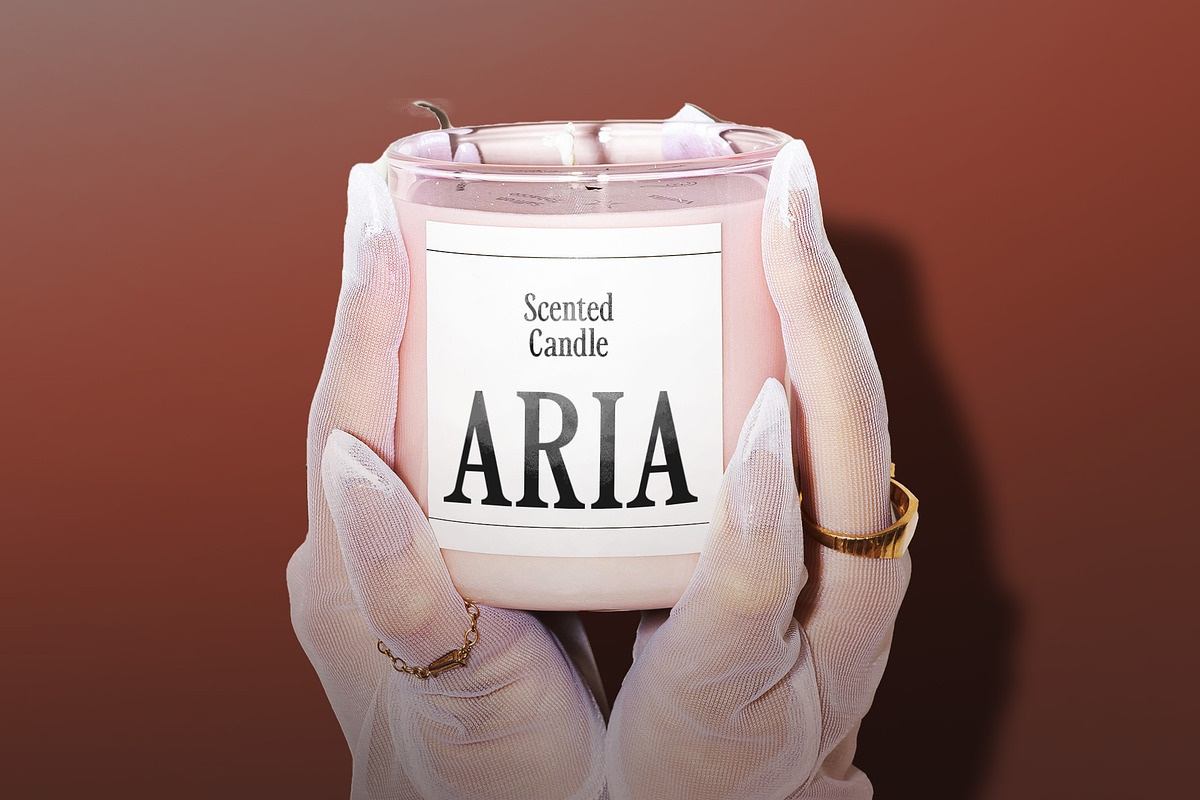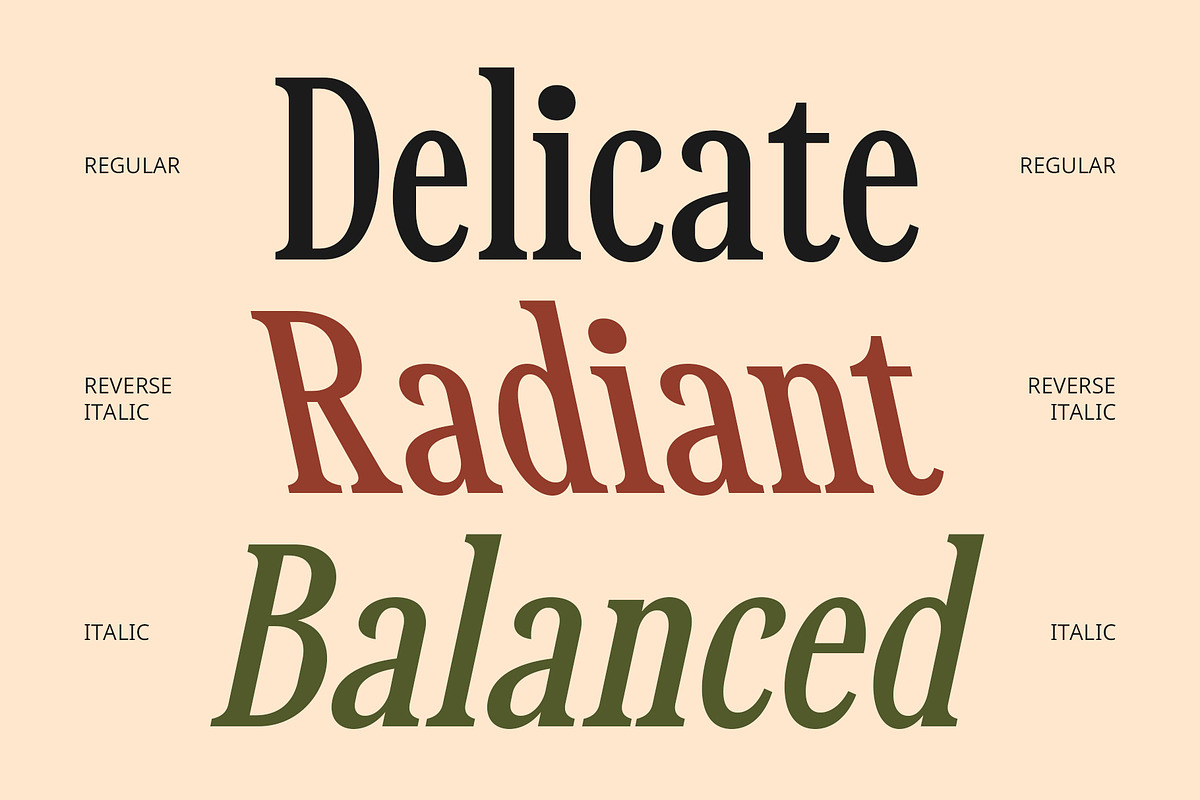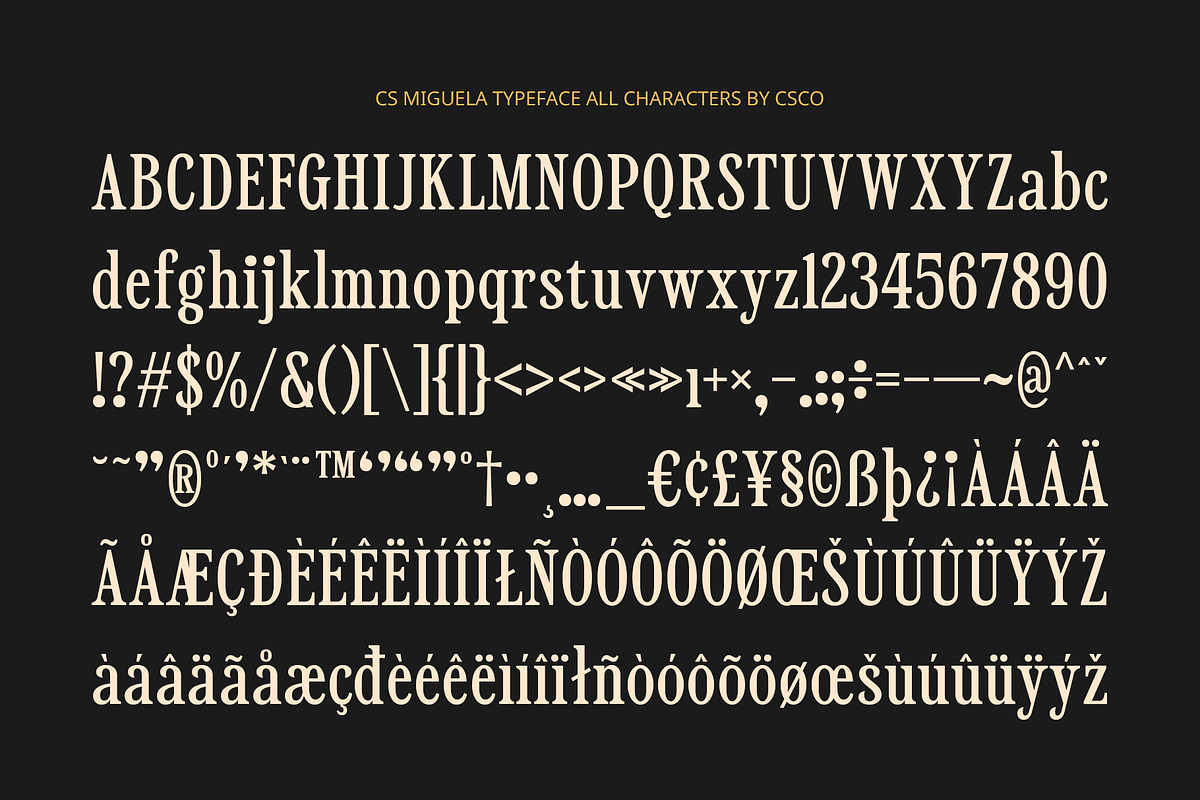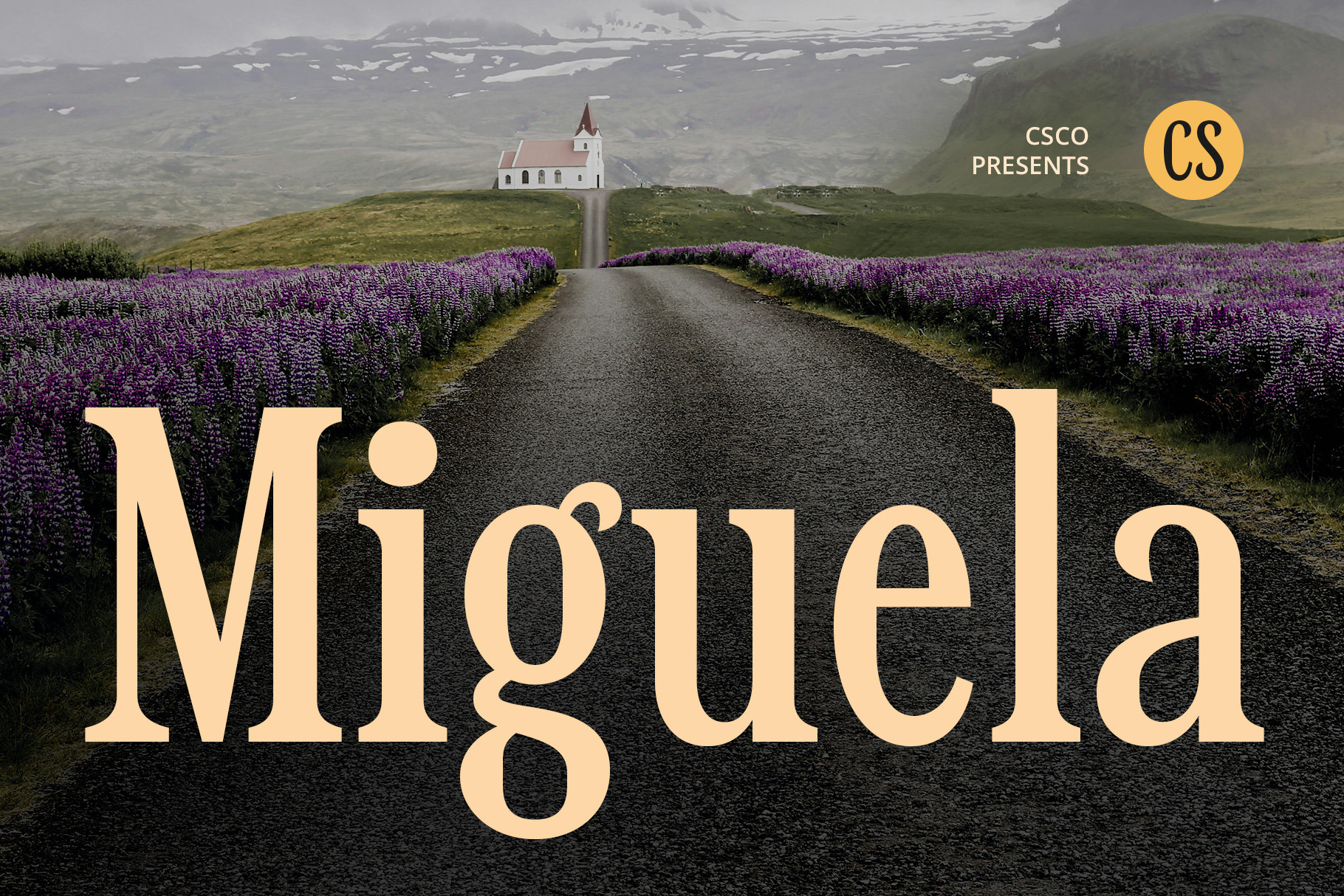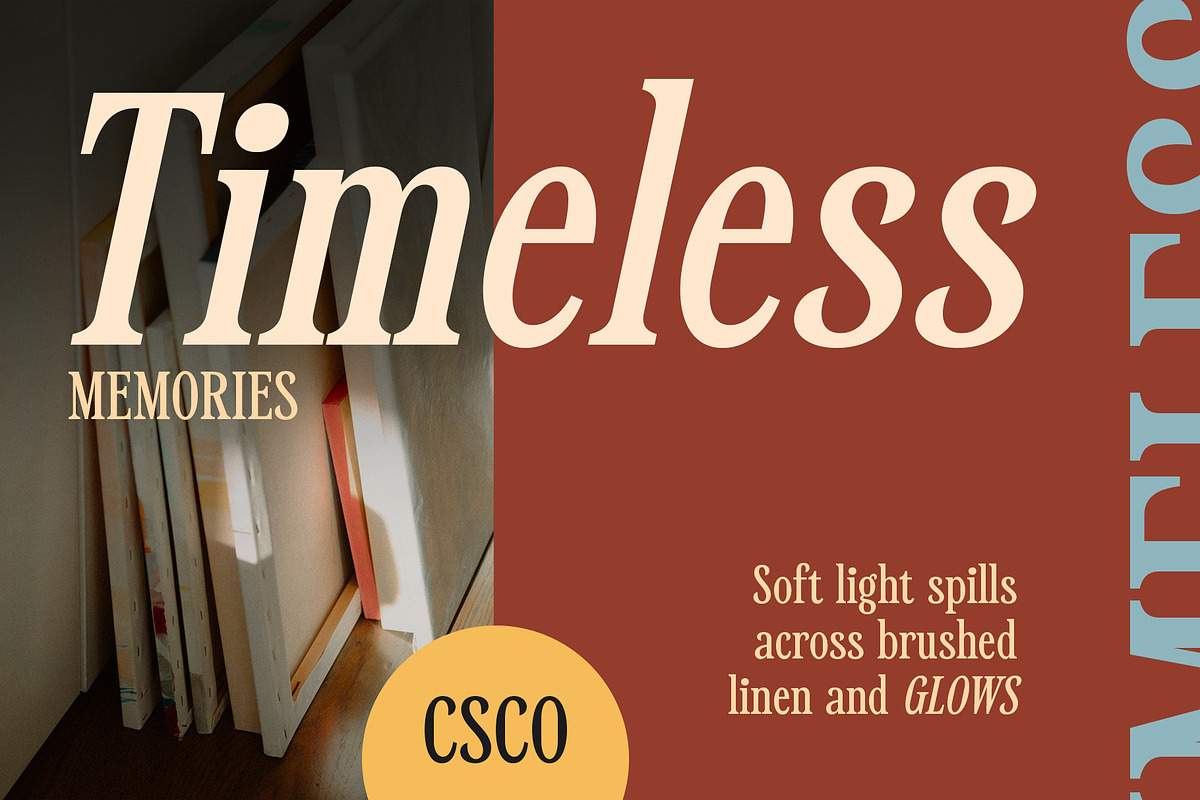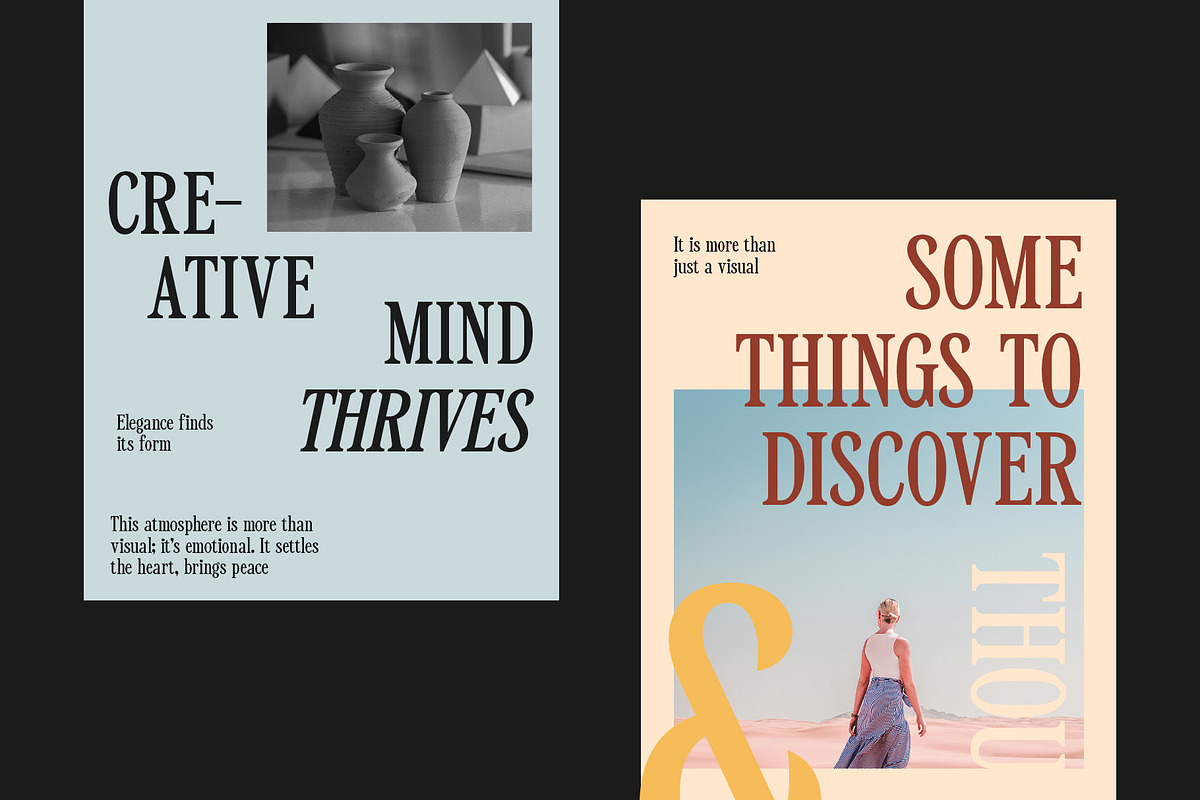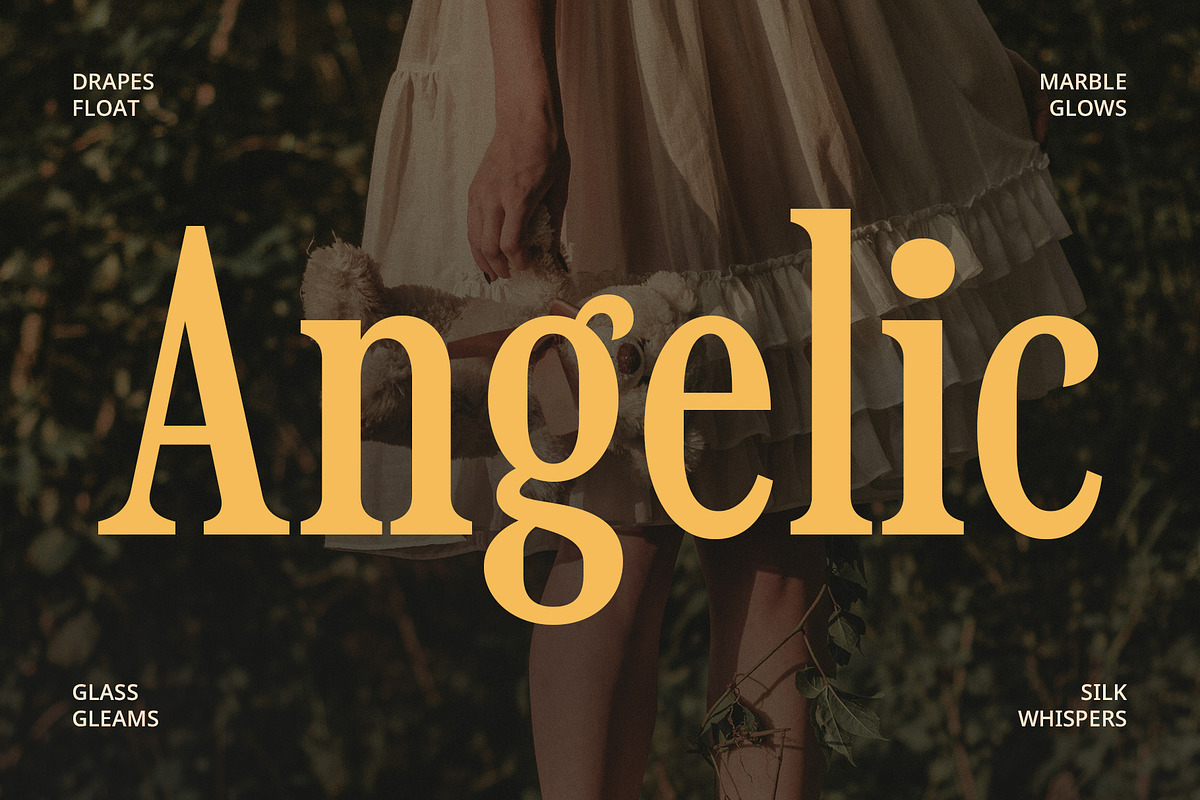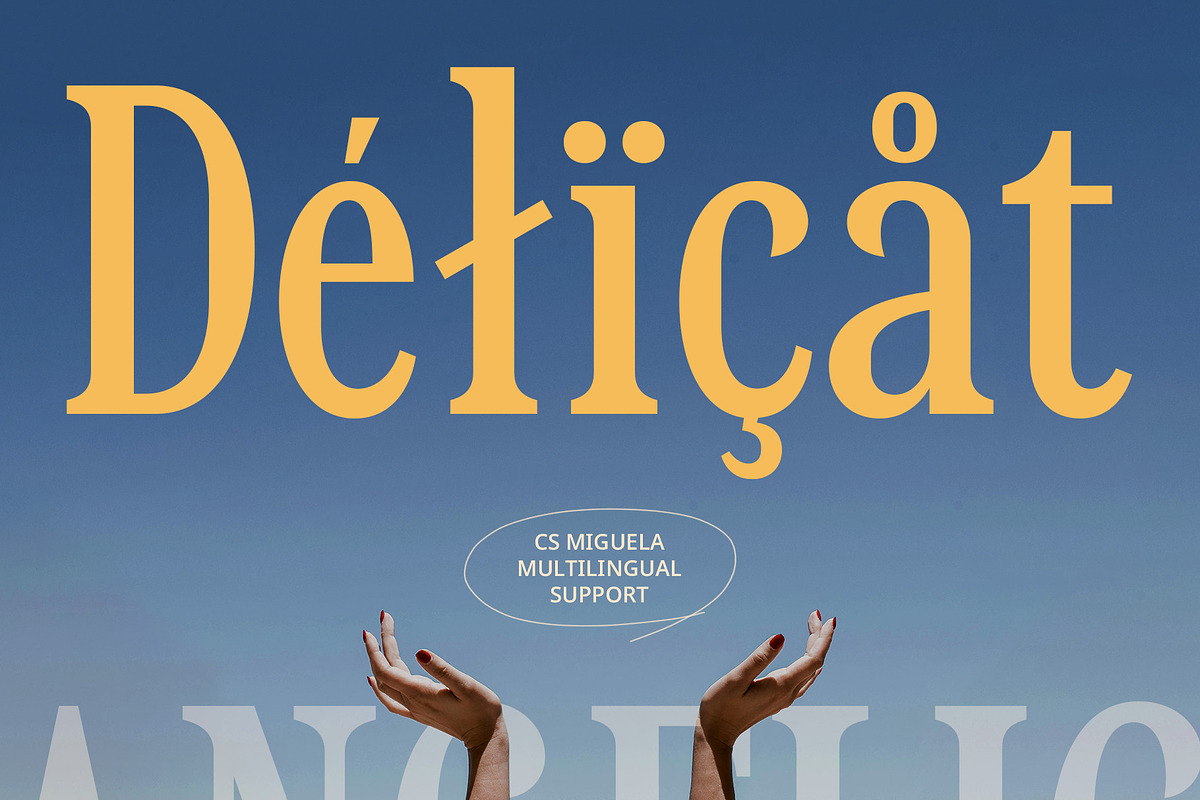
CS Miguela – Classic Font
CS Miguela – Classic Font of Timeless Elegance
Traditional Elegance with Engraved Heritage CS Miguela is a classic serif font rooted in traditional typography, featuring fine serifs, harmonious contrast between thick and thin strokes, and graceful proportions. Inspired by ancient inscriptions and timeless type forms, it brings a sense of historical depth and sophistication to modern design.
Balanced Shapes with Sophisticated Detail Every character in CS Miguela is carefully crafted with wide letterforms, elegant curvature, and refined detailing, resulting in a font that radiates intellect, class, and precision. The clarity of its structure adds to its legibility while maintaining a formal and poised aesthetic.
Perfect for Luxury and Editorial Design Designed for high-end branding, editorial layouts, books, and cultural publications, CS Miguela excels where timelessness and authority are needed. Its classic tone makes it ideal for conveying trust, elegance, and a rich narrative voice across mediums.
Timeless Appeal for Formal and Professional Projects Whether used in logos, invitations, packaging, or institutional branding, CS Miguela offers the kind of classic beauty that never fades. It’s a serif font that blends tradition with enduring visual impact—perfect for designers seeking a refined and lasting impression.
- CS Miguela Regular
- CS Miguela Italic
- CS Miguela Reverse Italic